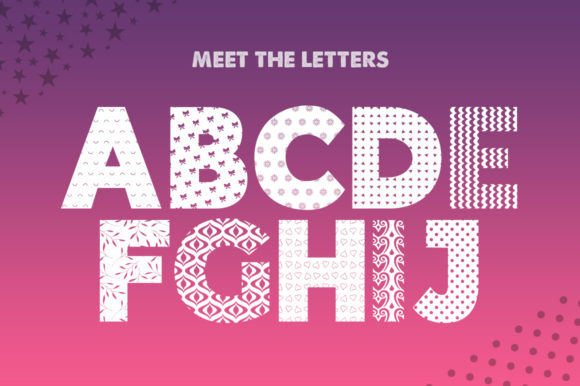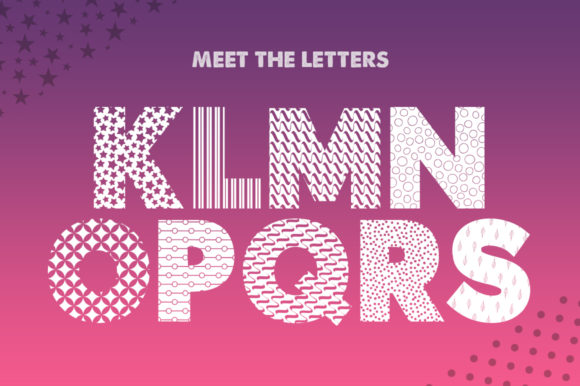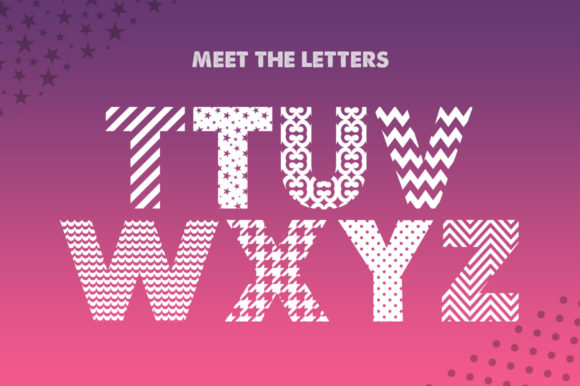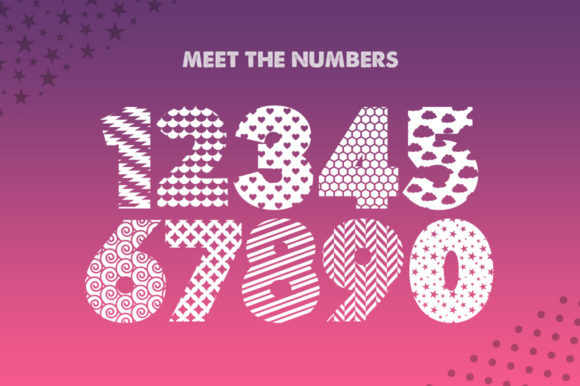
Introduction to Pattern Font
Pattern consists of various gorgeous patterns that give this display font a unique style.
Whether itโs stars, stripes, or playful zig-zag patterns, this fun display font will make any design project stand out .